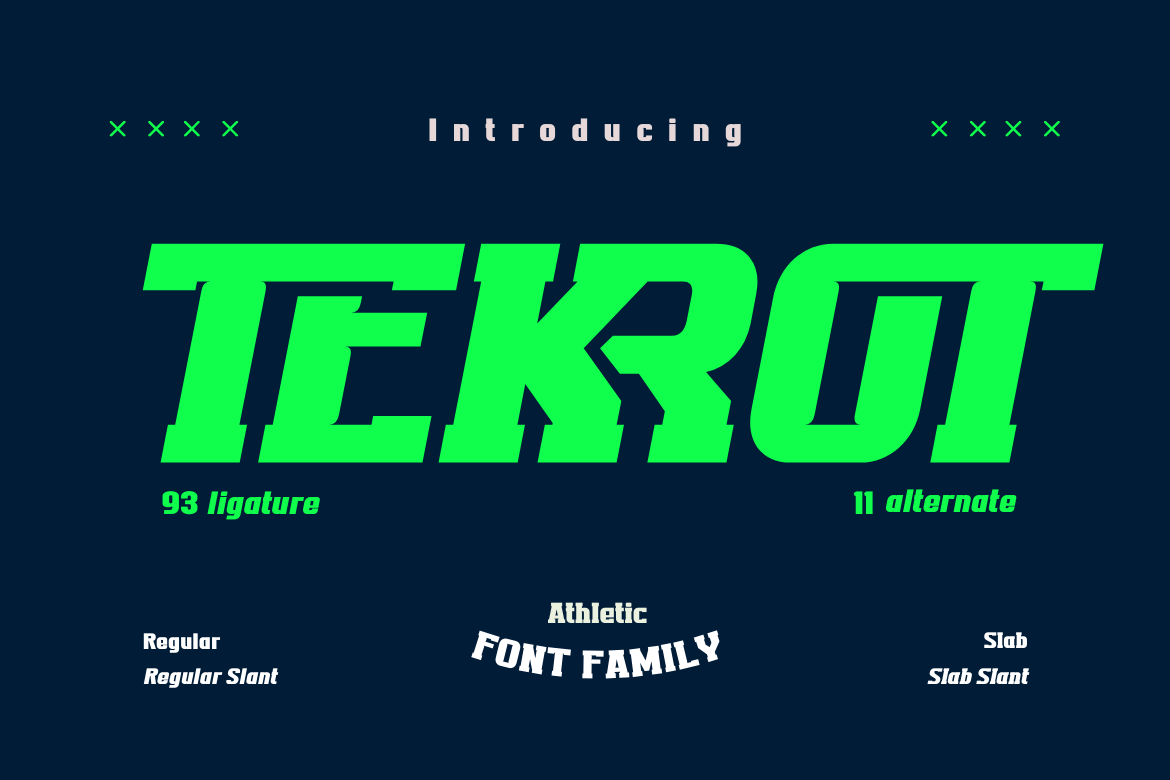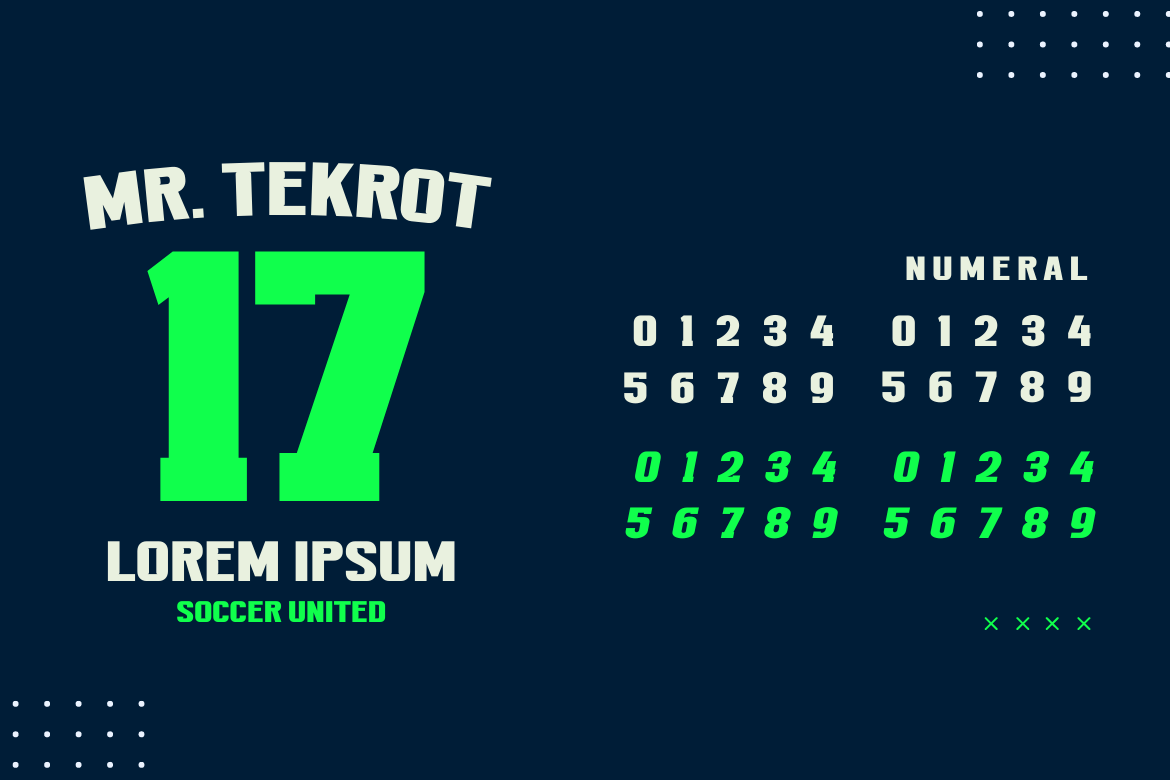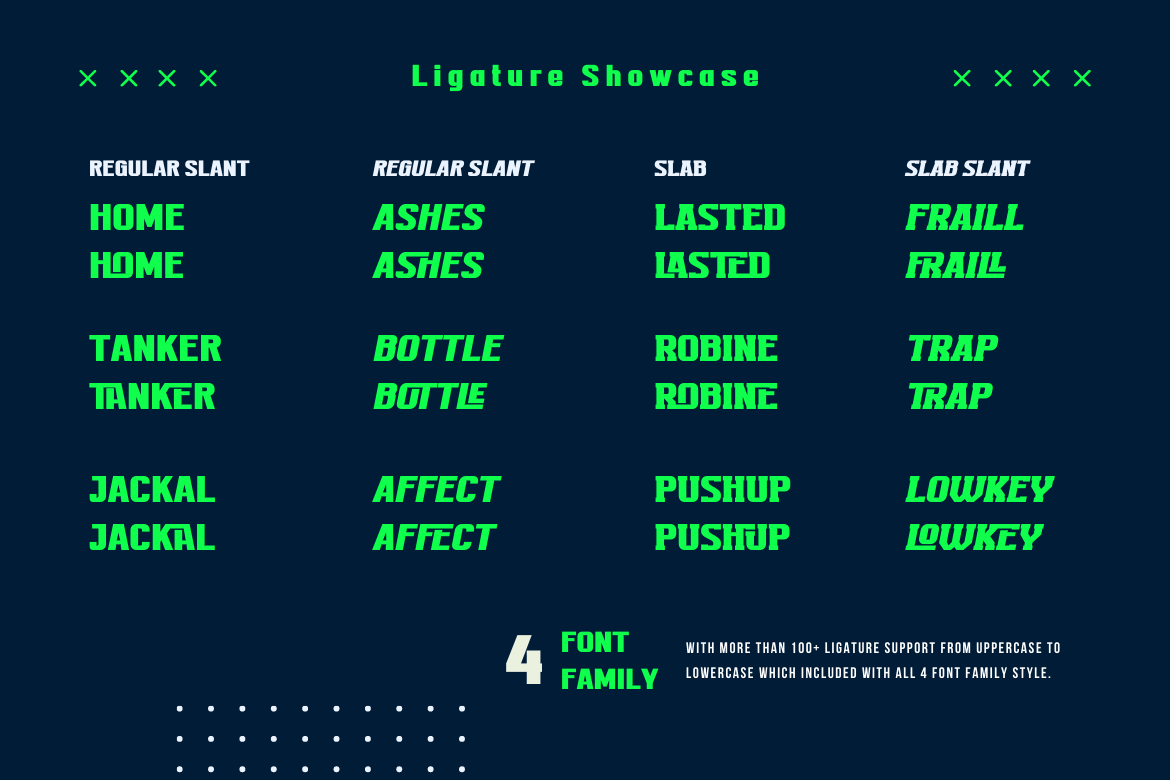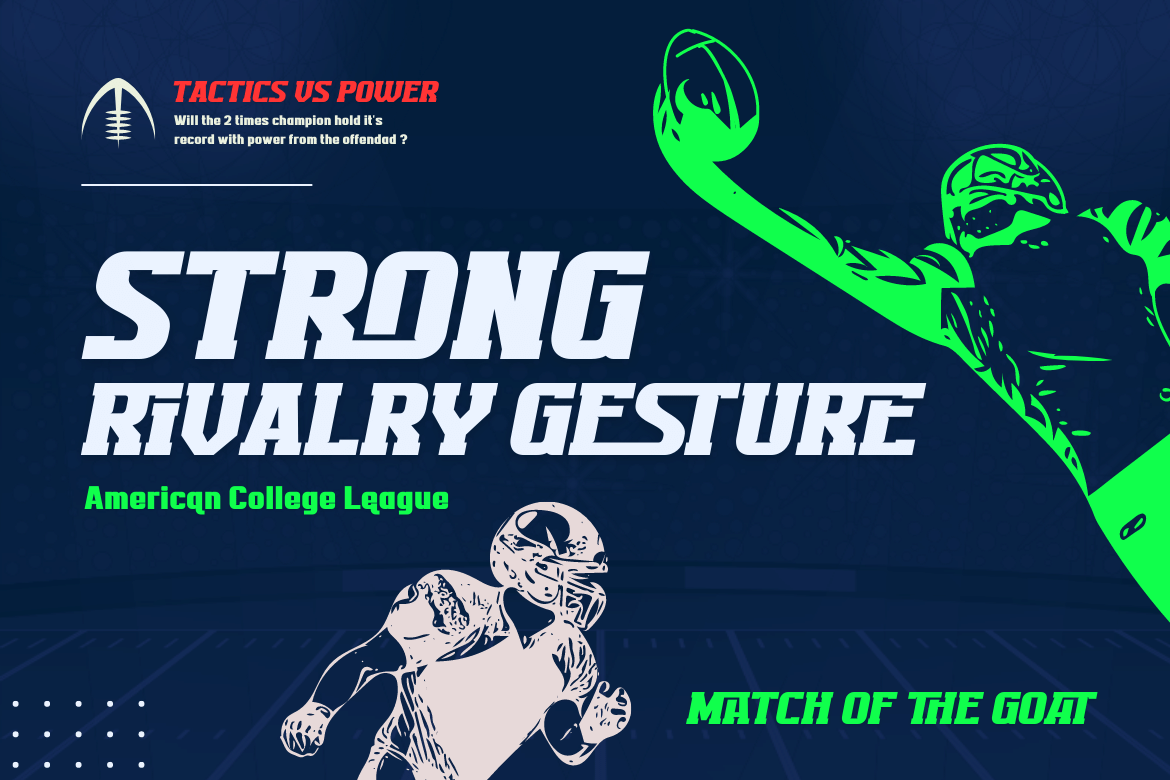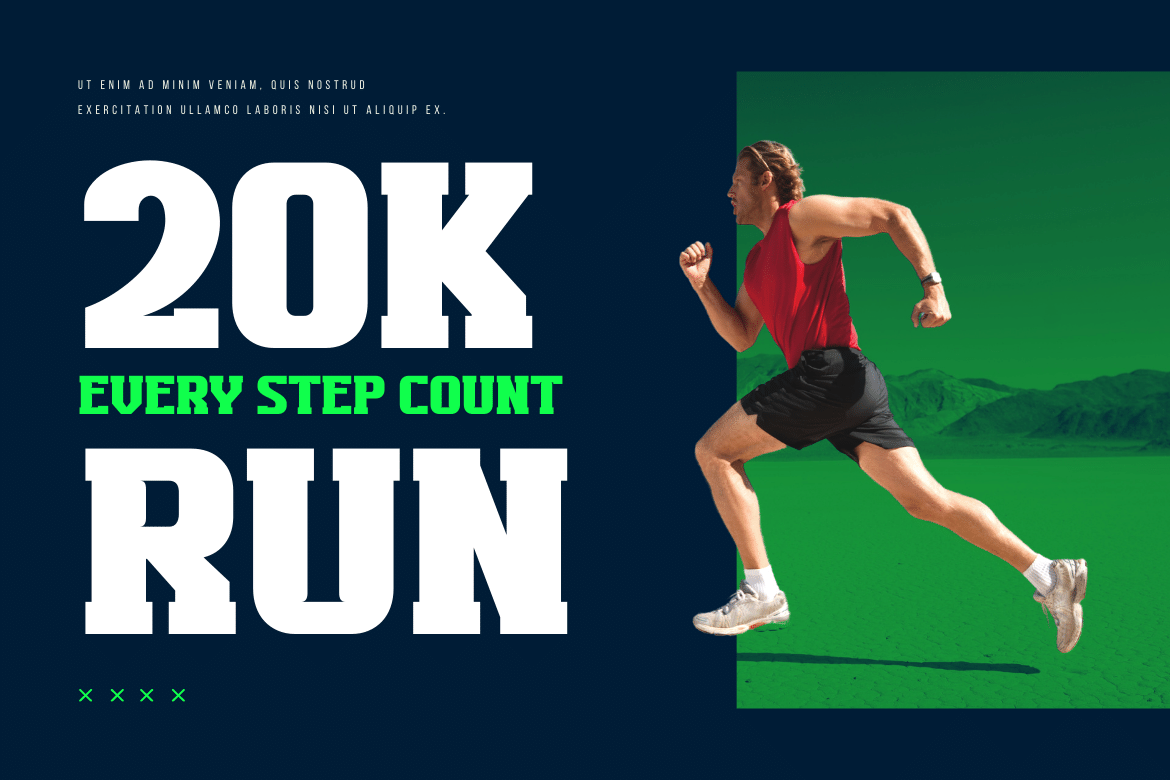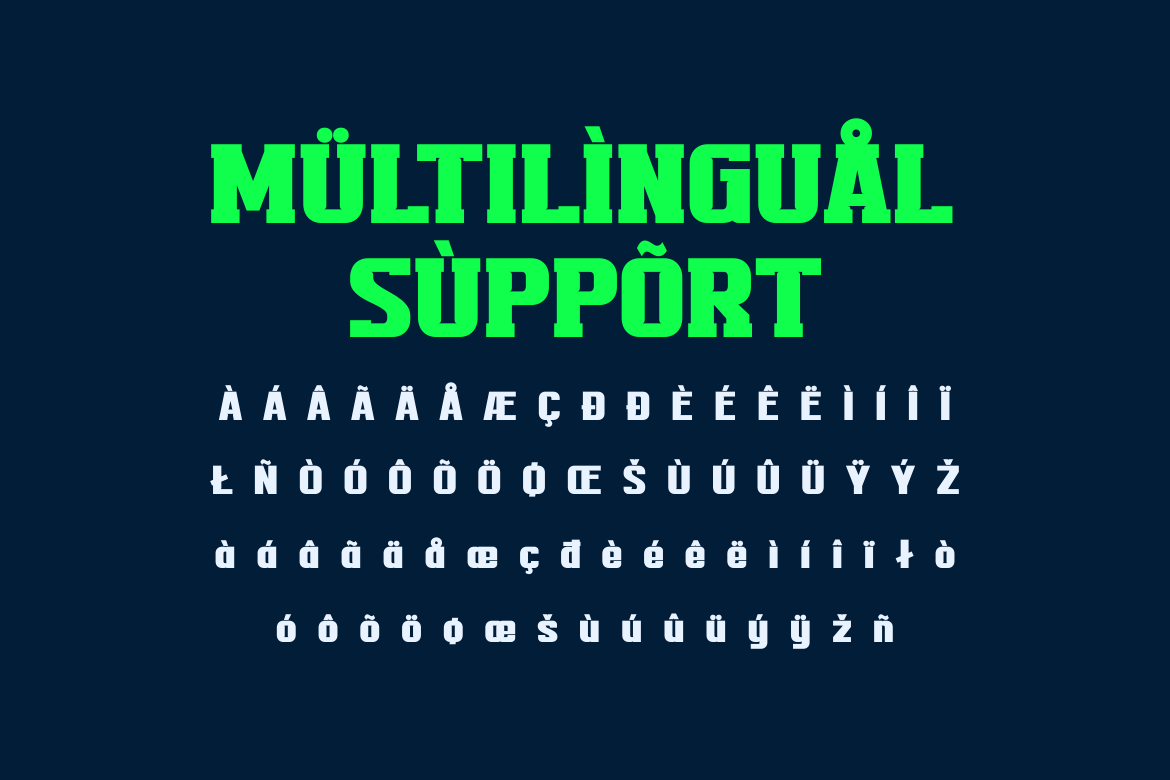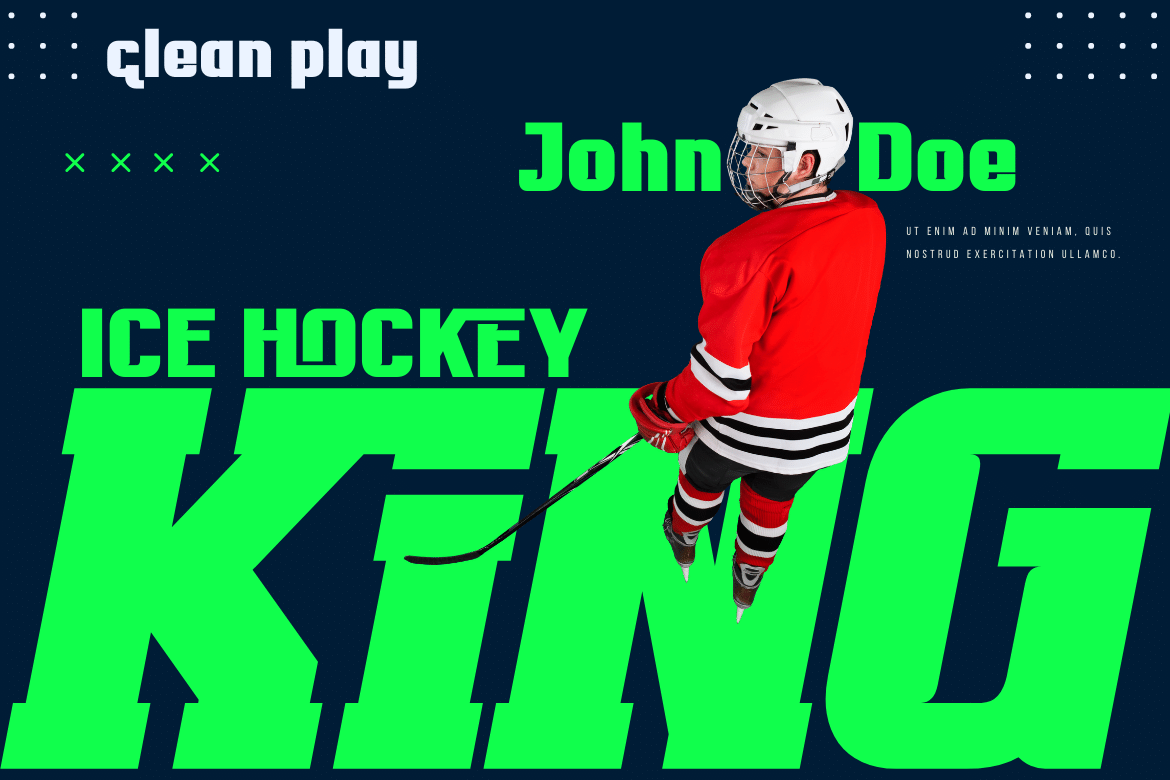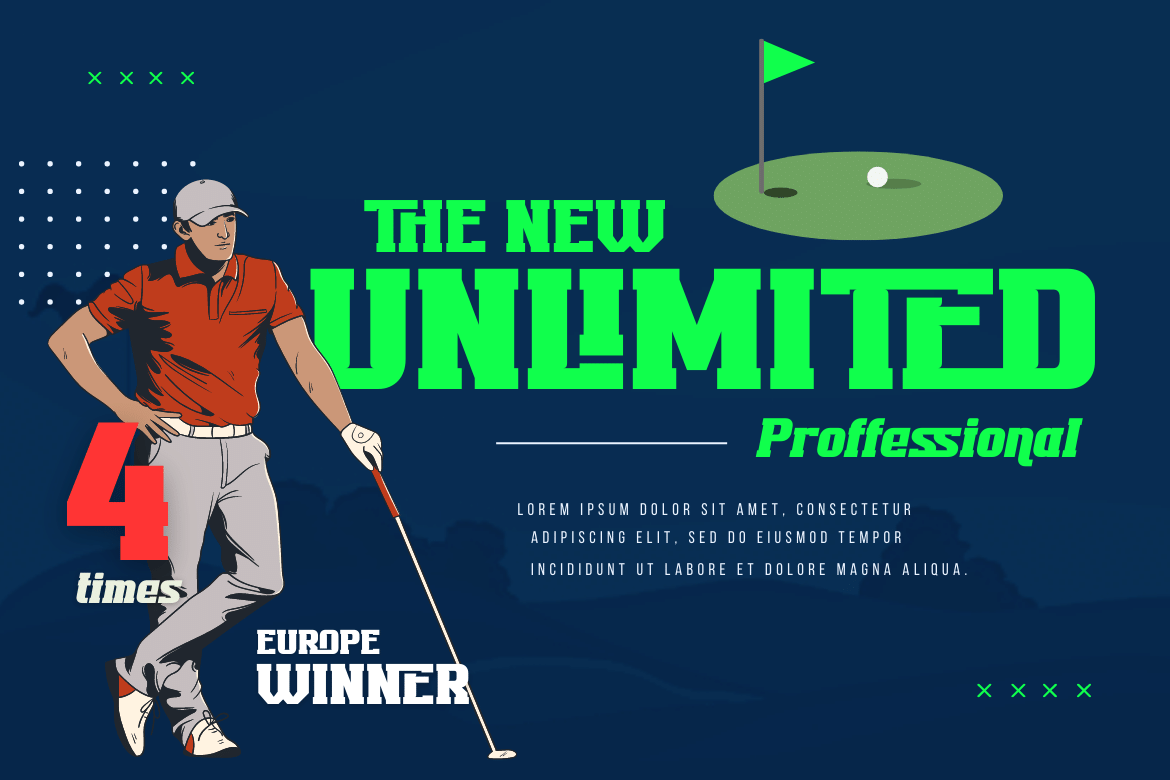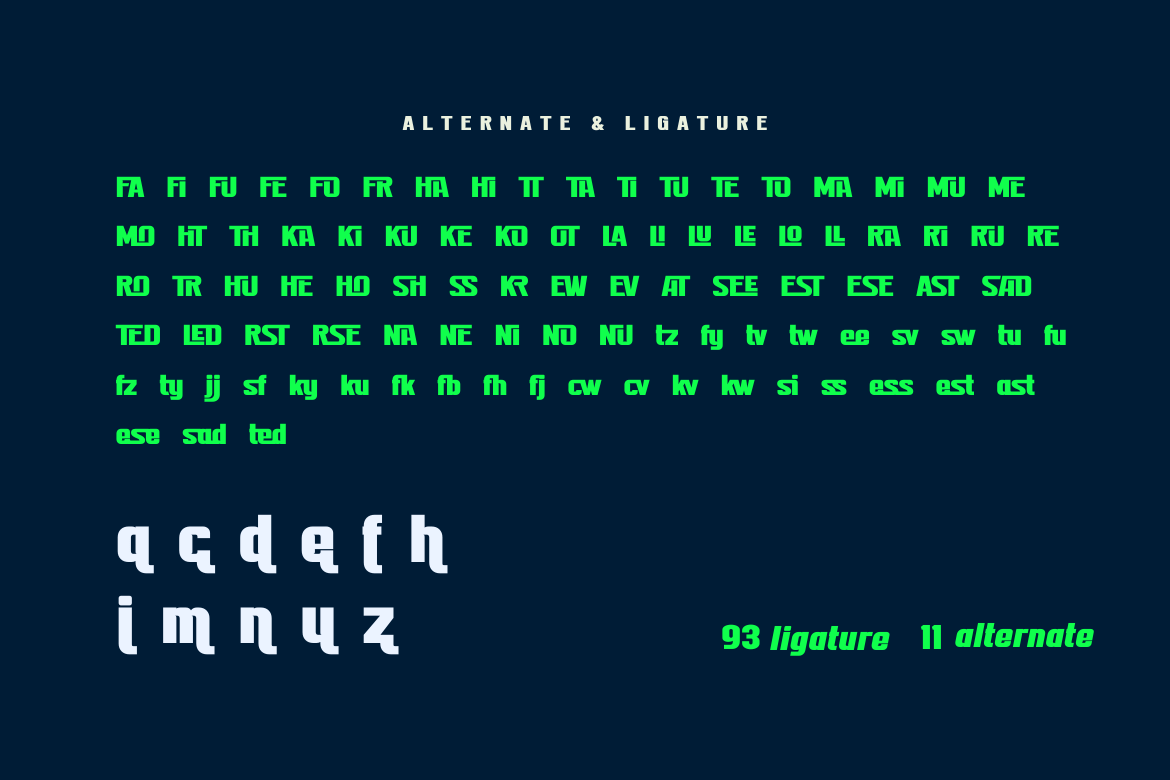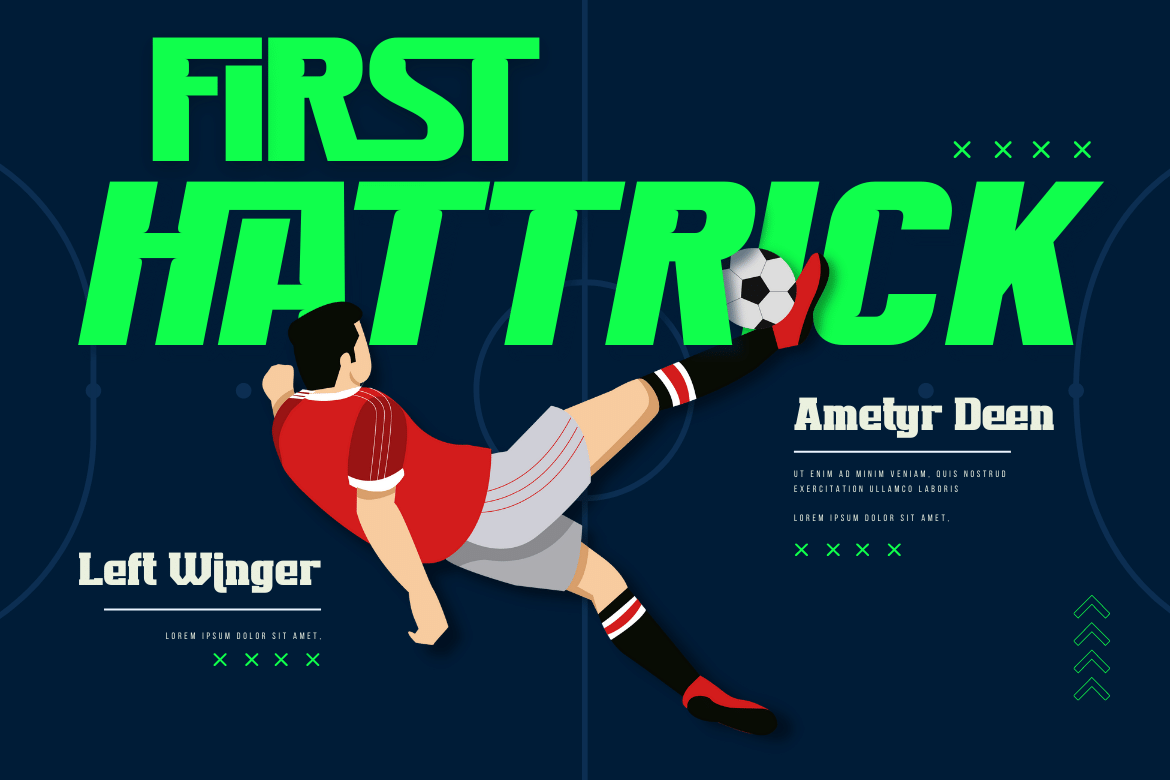
Tekrot Athletic Font
Tekrot is a sporty, powerful, and elegant font, with a sporty style. Inspired by design styles that are currently popular, this is the answer to every need for ideas that you will pour in this modern era with a thick and sturdy style in each letter as if this font has a soul in it.
Let your brand be as bold as you are with the Tekrot font. This font brings the quality of a sports team and athletic spirit to your designs, so whether you’re designing for all sports, or another message that calls for strength, this is the face for you.
- All glyphs Iso Latin 1
- Alternate, Ligature